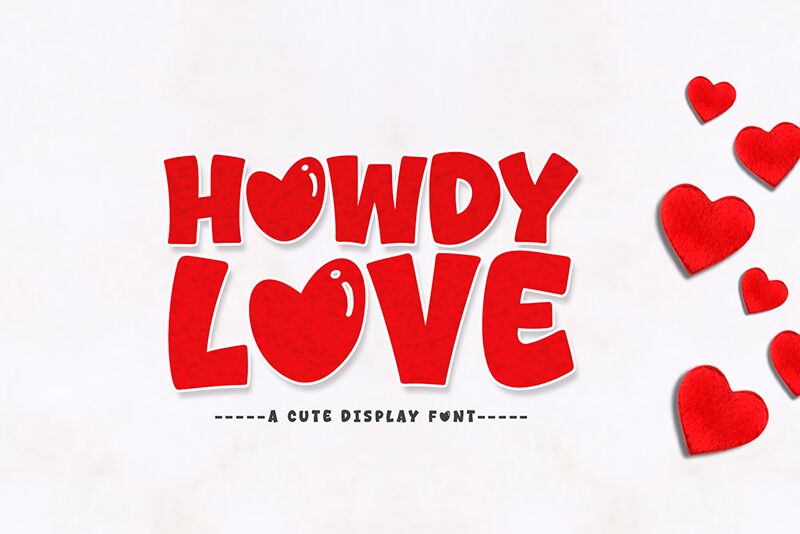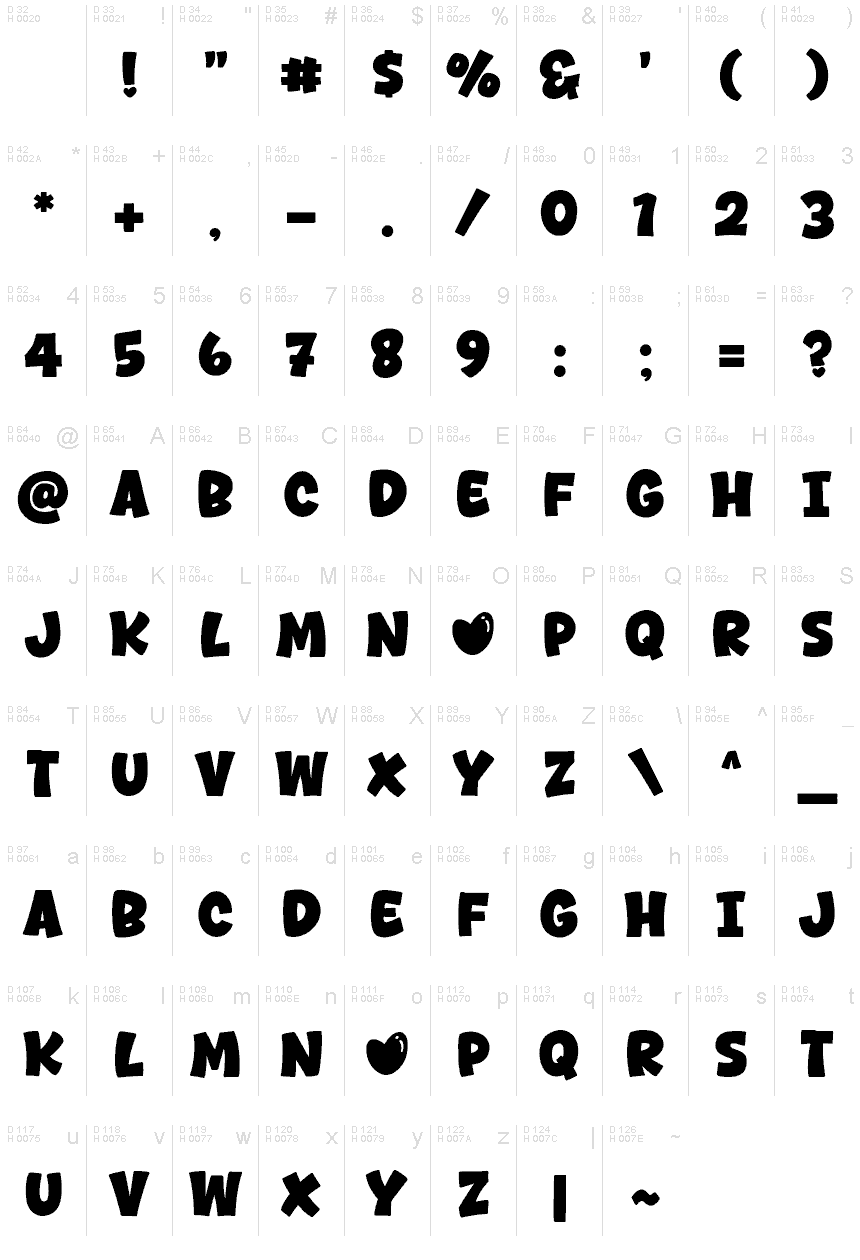
Howdy Love
Howdy Love font, designed by Khurasan, is a cartoon display font with a whimsical essence and a 1970s retro vibe. It has heart motifs and rounded forms that are fun and reader-friendly. The font has a bold thickness that makes it easy to read while being relaxing at the same time.
A free resource to download, use this delightful typeface for Valentine's Day cards or pamphlets. Have it as the main font in an event flyer or wedding invitation design. Other use cases include e-banners, web design projects, headings on websites and posters, advertisements placement inside magazines and newspapers as well as greeting card online or print designs.